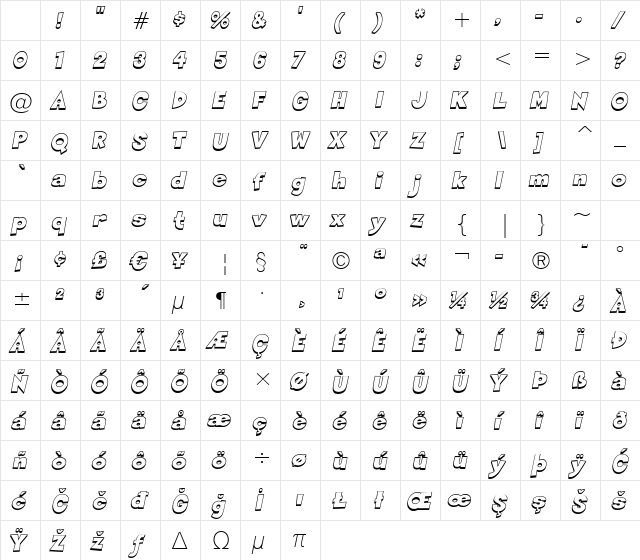
Complete Sneakerhead BTN Shadow Oblique glyph index. Displaying only characters natively supported by Sneakerhead BTN Shadow Oblique font.
Sneakerhead BTN Shadow is built around its visual character rather than neutral utility - its distinctive forms are designed to make an impression at display sizes. The slanted form adds forward momentum and visual energy.
Font Pairing: Pair with a clean neutral sans-serif for body copy to let Sneakerhead BTN Shadow's character lead without overwhelming the composition.
Pro Tip: Use Sneakerhead BTN Shadow exclusively at display sizes - it was designed to be seen, not read at length. Let a neutral companion handle body copy.